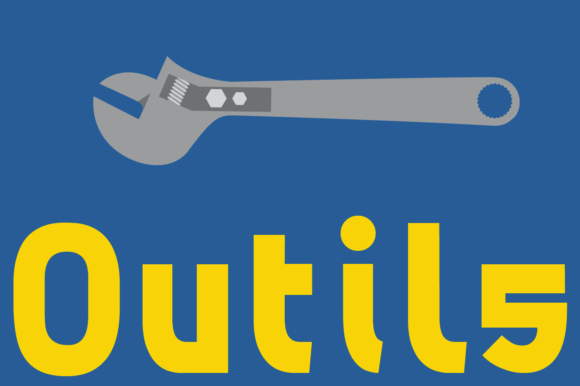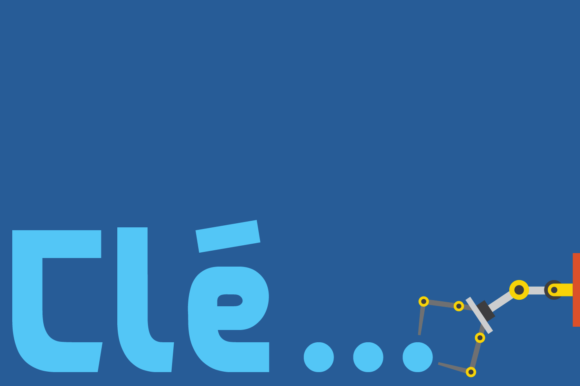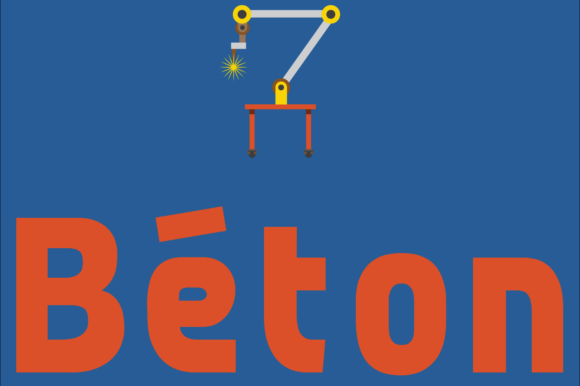
Béton Font: A Bold and Versatile Typeface for Designers and Crafters
In the world of typography, a well-designed font can make all the difference in the success of a project. For designers and crafters looking for a bold and versatile typeface, Béton Font is an excellent choice. This simple yet striking font is based on elementary shapes with a mix of round and square corners, making it perfect for a wide range of applications.
What is Béton Font?
Béton Font is a set of 121 bold signs that are designed to be easily readable and highly versatile. The font is based on basic shapes, including geometric forms and abstract symbols, which gives it a unique and modern look. The mix of round and square corners adds a touch of sophistication and elegance, making it suitable for a variety of design projects.
Key Features of Béton Font
- Bold and eye-catching: Béton Font is designed to make a statement. Its bold and chunky design makes it perfect for headlines, titles, and other display text.
- Elementary shapes: The font is based on simple shapes, which gives it a clean and modern look.
- Mix of round and square corners: The combination of round and square corners adds a touch of sophistication and elegance to the font.
- 121 signs: Béton Font includes a wide range of signs, making it versatile and suitable for a variety of design projects.
Uses of Béton Font
Béton Font is a versatile typeface that can be used in a wide range of design projects, including:
- Graphic design: Béton Font is perfect for graphic design projects, such as brochures, posters, and business cards.
- Crafting: The font is also suitable for crafters who want to add a personal touch to their projects, such as handmade cards, scrapbooking, and DIY signs.
- Digital design: Béton Font can be used in digital design projects, such as website headers, social media graphics, and email newsletters.
Benefits of Using Béton Font
There are several benefits to using Béton Font in your design projects:
- Easy to read: Béton Font is designed to be easily readable, even at small sizes.
- Highly versatile: The font can be used in a wide range of design projects, from graphic design to digital design.
- Unique and modern look: Béton Font has a unique and modern look that will make your design projects stand out.
Tips for Using Béton Font
Here are some tips for using Béton Font in your design projects:
- Use it boldly: Béton Font is designed to make a statement, so don’t be afraid to use it boldly.
- Experiment with colors: The font looks great in a variety of colors, so experiment with different color schemes to find the one that works best for your project.
- Pair it with other fonts: Béton Font can be paired with other fonts to create a unique and interesting look.
Béton Font is a bold and versatile typeface that is perfect for designers and crafters looking for a unique and modern look. With its elementary shapes and mix of round and square corners, Béton Font is highly versatile and can be used in a wide range of design projects. Whether you’re working on a graphic design project, a crafting project, or a digital design project, Béton Font is an excellent choice.